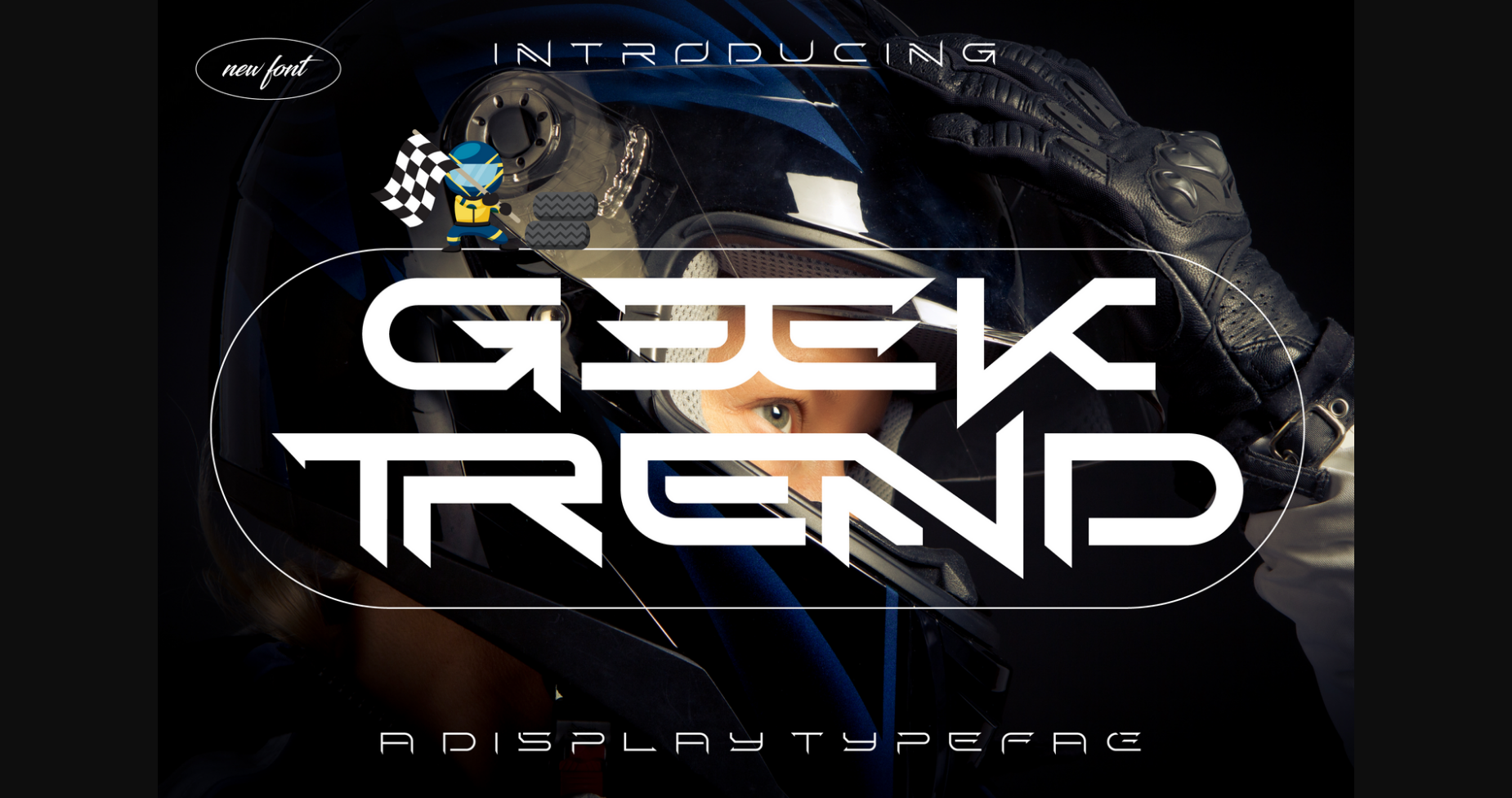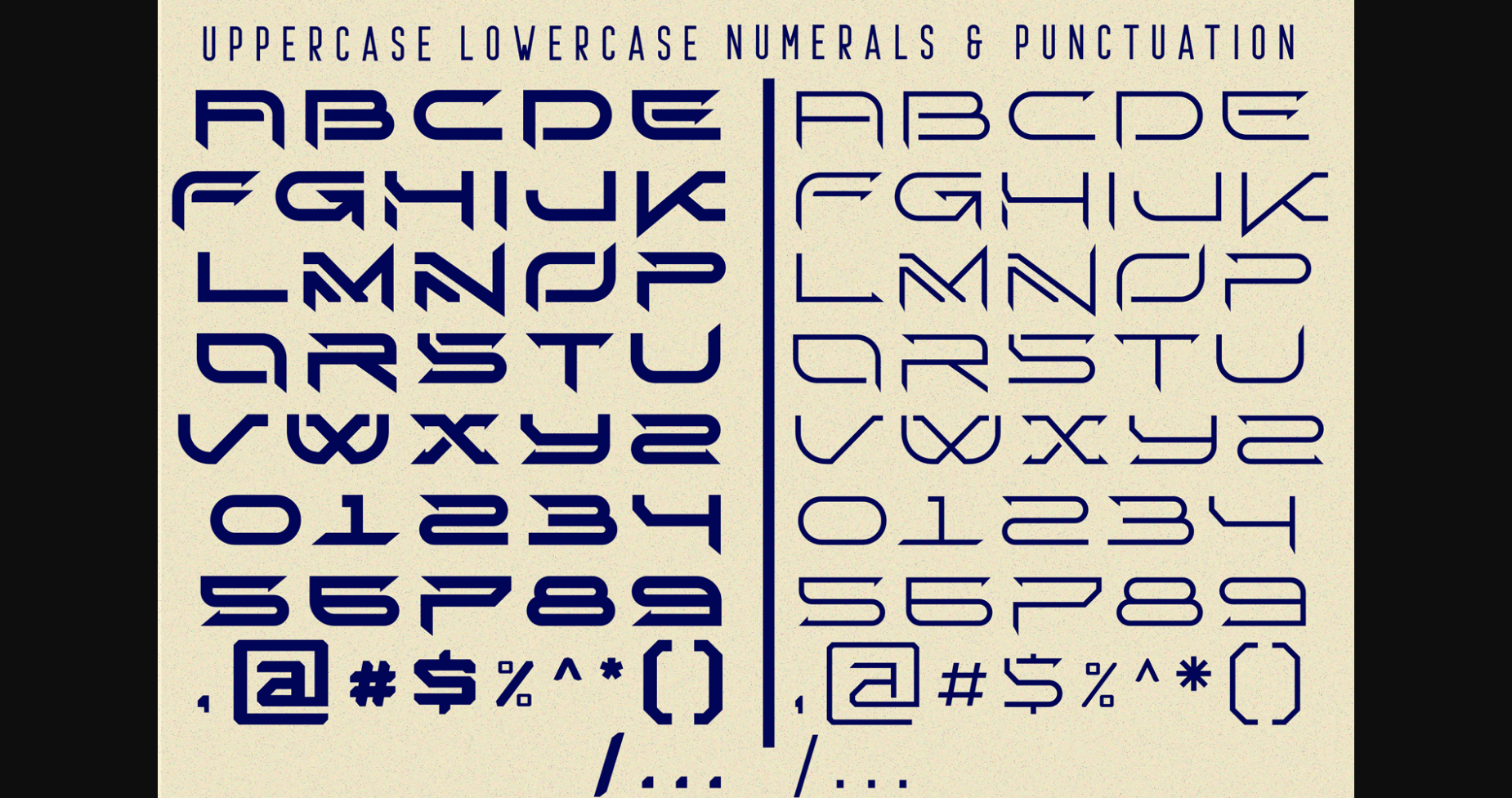
About Geek Trend Font
Geek Trend is a futuristic display font, it’s a bold and edgy typeface with a distinct cyberpunk, futuristic aesthetic. This font embodies the high-tech and innovative spirit of space exploration and military technology. Its sleek lines and sharp angles give a modern, high-tech feel, while its blocky, heavy structure conveys strength and power. It’s the perfect font for creating outstanding posters, flyers, social media posts, and much more!